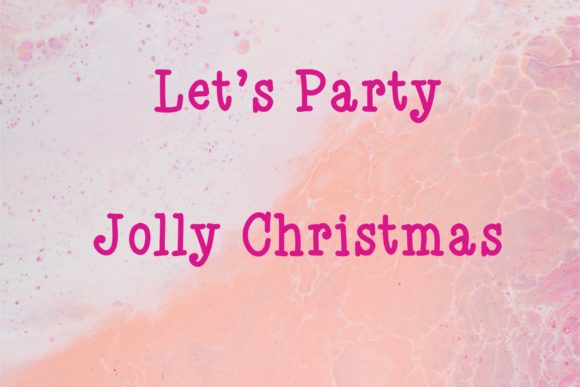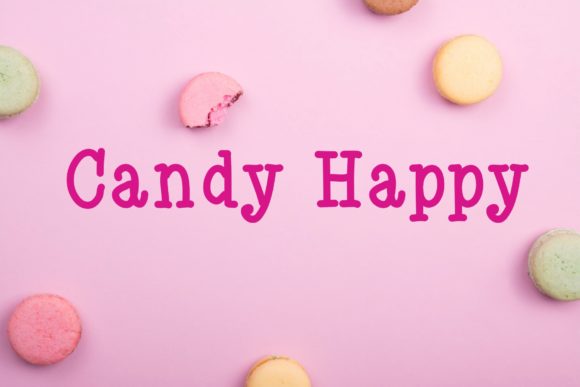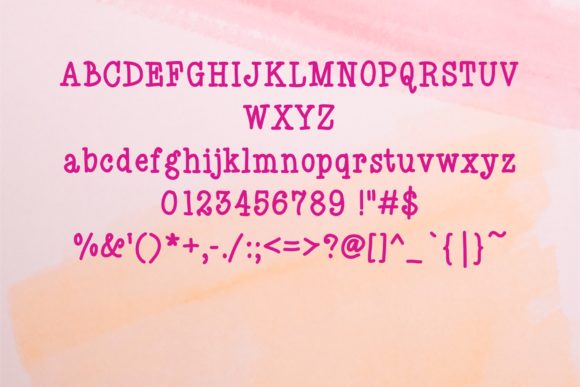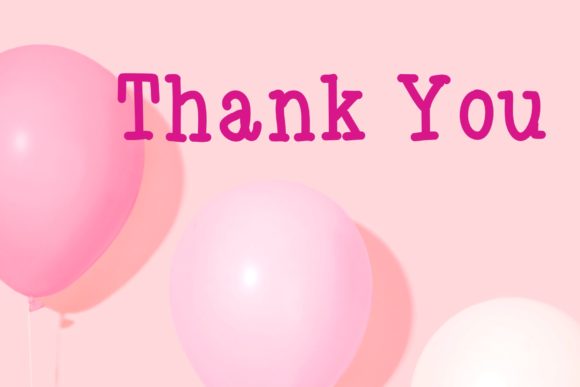
Introducing Christmas Paradise Font: Elevate Your Designs with Timeless Elegance
Are you searching for a font that embodies the essence of the holiday season and beyond? Look no further than Christmas Paradise Font, a unique and captivating serif font designed to add a touch of elegance and sophistication to your designs. With its incredibly stylish look, this font is sure to fall in love with designers and crafters alike, offering endless possibilities for creative expression.
Unleash Your Creativity with Christmas Paradise Font
Christmas Paradise Font is more than just a typeface; it’s a design experience. Its distinctive serif characteristics bring a sense of tradition and luxury, making it perfect for a wide range of applications. Whether you’re working on logos, quotes, invitations, business cards, PowerPoint presentations, or any other design project, this font is guaranteed to elevate your work to new heights.
The Versatility of Christmas Paradise Font
One of the standout features of Christmas Paradise Font is its versatility. Its classic yet modern aesthetic ensures that it can be seamlessly integrated into various design contexts. Here are just a few ways you can use Christmas Paradise Font to enhance your designs:
- Logos: Create memorable and impactful logos that stand out from the crowd. The unique serif details of Christmas Paradise Font make it an excellent choice for branding and identity projects.
- Quotes and Posters: Add a touch of elegance to your inspirational quotes and posters. The readability and beauty of this font ensure that your message is conveyed with style and sophistication.
- Invitations: Whether it’s a wedding, holiday party, or corporate event, Christmas Paradise Font can help you create stunning invitations that set the tone for your special occasion.
- Business Cards: Stand out in the business world with professional and stylish business cards. This font’s classic appeal makes it suitable for corporate and personal branding.
- PowerPoint Presentations: Elevate your presentations with a font that commands attention and respect. Christmas Paradise Font can add a level of professionalism and elegance to your slides.
Why Choose Christmas Paradise Font?
With so many fonts available, why should you choose Christmas Paradise Font for your projects? Here are a few compelling reasons:
- Unique Design: Christmas Paradise Font boasts a unique design that will set your work apart from others. Its distinctive serif style is both eye-catching and memorable.
- High Readability: Despite its decorative nature, this font maintains high readability, making it suitable for both headings and body text.
- Timeless Appeal: Unlike trendy fonts that may quickly become outdated, Christmas Paradise Font has a timeless quality that ensures your designs remain stylish for years to come.
Tips for Getting the Most Out of Christmas Paradise Font
To maximize the impact of Christmas Paradise Font in your designs, consider the following tips:
- Experiment with Sizes: Play around with different font sizes to create visual hierarchy and emphasize key points in your design.
- Combine with Other Fonts: Don’t be afraid to pair Christmas Paradise Font with other typefaces to create contrast and add depth to your designs.
- Adjust Line Spacing: Optimize line spacing to ensure your text is easy to read and visually appealing.
- Explore Color Options: Take advantage of the font’s versatility by experimenting with different colors and gradients that complement your brand or design theme.
Christmas Paradise Font is a game-changer for designers and crafters looking to infuse their projects with a touch of elegance and sophistication. Its unique serif design, versatility, and timeless appeal make it an invaluable addition to your font collection. Whether you’re creating logos, invitations, presentations, or more, this font is sure to inspire and elevate your designs. Embrace the beauty of Christmas Paradise Font and discover a world of creative possibilities at your fingertips.
| Font Name | Christmas Paradise Font |
| Author | KateType |